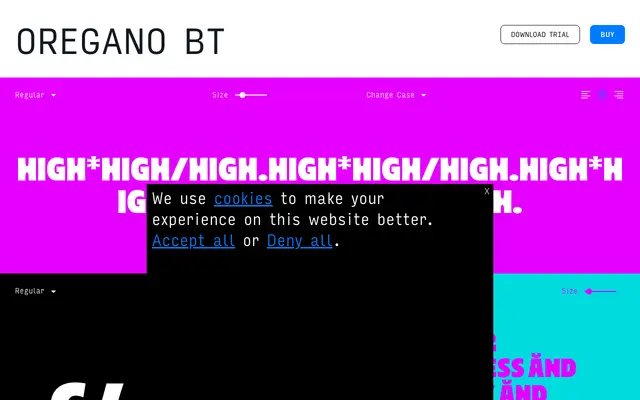
A single-weight display sans from Bastarda with a counterculture edge, drawing on 1960s and 1970s graphic vernacular.
Released by Colombian foundry Bastarda, Oregano BT carries the visual language of underground print culture, with sample copy referencing Woodstock, cannabis culture and hippie iconography. The family ships in one weight with broad Latin Extended coverage, circled numeral variants and a generous set of geometric and decorative symbols. Its scope is limited to headline and poster use, where its personality is an asset rather than a constraint.
Oregano BT is a display-oriented sans with a counterculture, street-level aesthetic, suited to headlines and graphic contexts rather than running text. Its character set includes circled numerals, geometric shapes and decorative glyphs that reinforce its expressive, display intent.